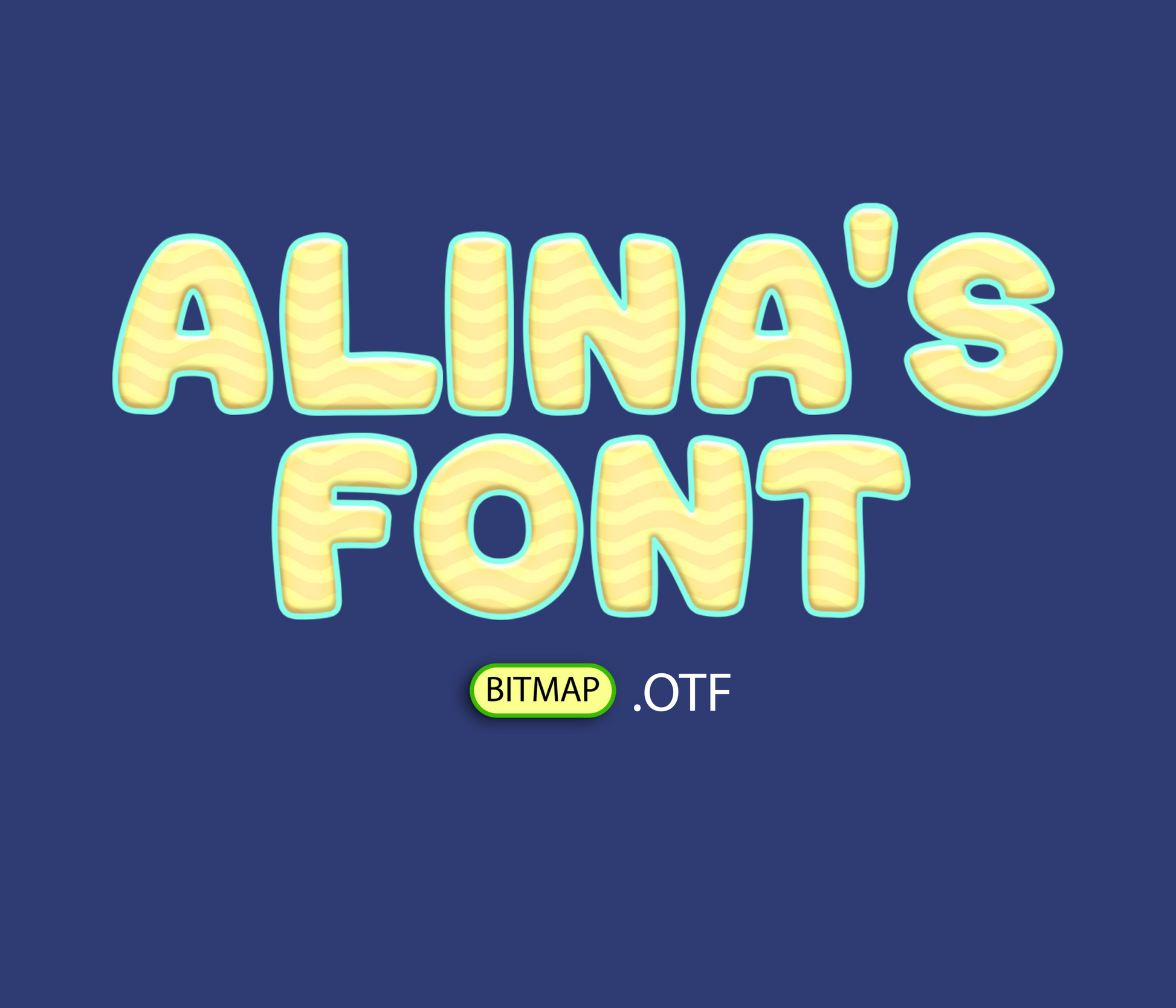
Tropical Paradise Typeface Textured
Step into the sun-soaked world of island paradise with our Tropical Paradise Typeface, capturing the essence of swaying palm trees and crystal-clear lagoons. Perfect for resort businesses, tropical brands, vacation planners, and creative professionals, this font brings the relaxed, adventurous spirit of ocean breezes and golden sunsets to your projects. Create enchanting signage, tropical-themed products, or digital content with the warm, inviting charm of pristine beaches and lush rainforests.
Our Tropical Paradise Typeface features flowing, wave-inspired shapes and playful characters reflecting the laid-back yet vibrant aesthetic of island communities. Ideal for:
- Tourism Business: Create appealing logos, packaging, and promotional materials for hotels, restaurants, and tropical vacation destinations
- Summer Design: Perfect for party invitations, beach-themed decorations, and marketing materials that celebrate coastal living and island adventures
- Digital Media: Enhance websites, blogs, and social media with sunny headers and graphics that express tropical joy and relaxation
- Travel Content: Add authentic character to travel guides, destination brochures, and promotional materials for exotic getaway packages
- Personal Projects: Bring island charm to greeting cards, craft projects, and home decor inspired by the aesthetics of tropical paradises
Our Tropical Paradise Typeface includes textured and non-textured variants, ensuring compatibility with all software, including Canva. This feature allows easy incorporation into designs for users of all skill levels.